Jessica Hische: Silencio Sans
The name Silencio references silent films, but this font would feel as at home in magazines, invitations and fancy food packaging as it does on the silver screen.
Trial By Cupcakes: Quickpen
Quickpen is casual and carefree, designed to recreate the look of confident, quickly jotted script with a felt tip pen or brush.
Los Andes: Darwin
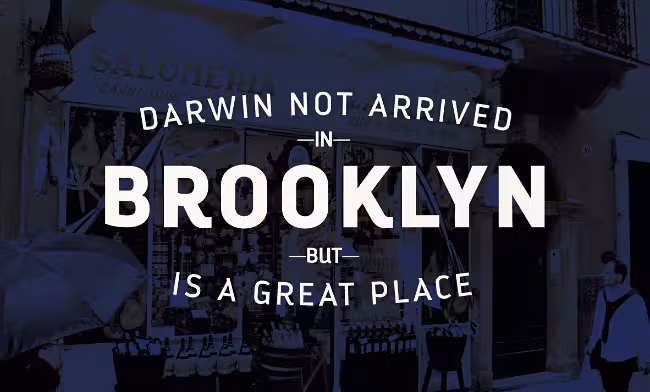
Darwin is an eclectic assembly of grotesque, geometric and humanistic styles.
Grilli Type: GT Sectra
A contemporary serif typeface combining the calligraphy of the broad nip pen with the sharpness of the scalpel.
Lettersoup: Ropa Sans Pro
While the upright styles pay a distant homage to the technical aesthetics of the early–20th century DIN series, the strongly humanistic italics breathe in quirky freshness and create a unique flavor.
dooType: Bommer Slab
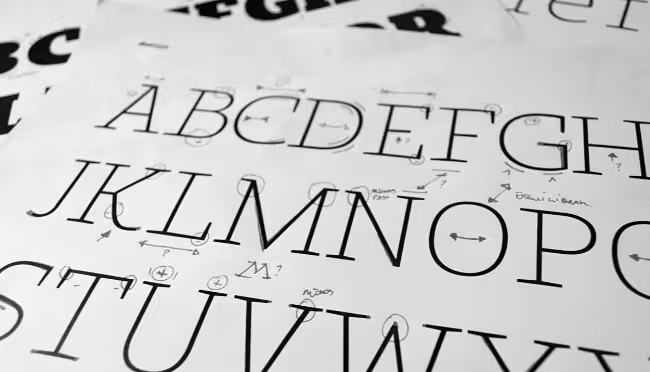
A strong personality that makes it perfect for use in headline sizes, but it also works gracefully within text blocks.
Commercial Type: Gabriello
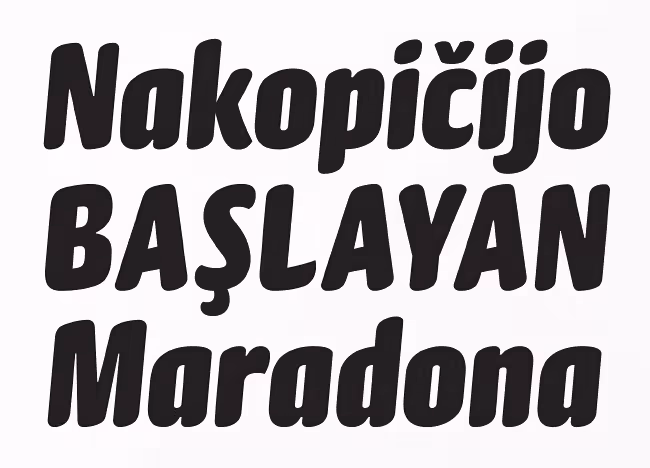
Gabriello is slanted on two axes, both horizontally and vertically, giving the energy of a script without causing production problems.
Cultivated Mind: Ciao Bella
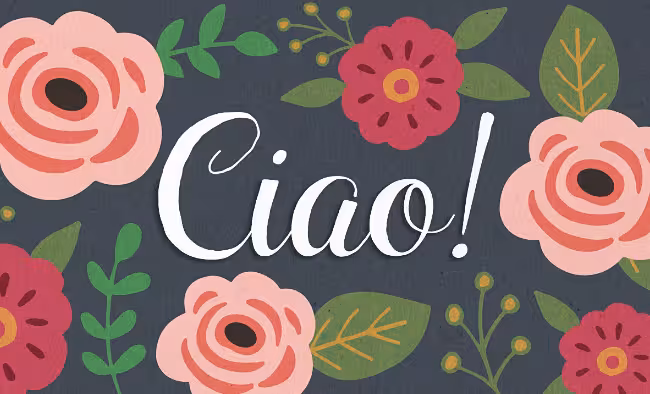
Ciao Bella pairs the funky elegance of a hand–drawn copperplate script with four ornament fonts.
Calderón Estudio Type Foundry: Risotto Script
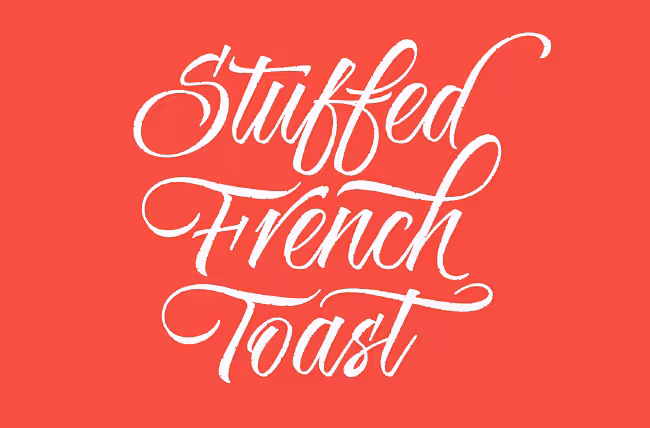
Risotto Script represents the texture, sound, smell and flavor of food.
Production Type: Cogito
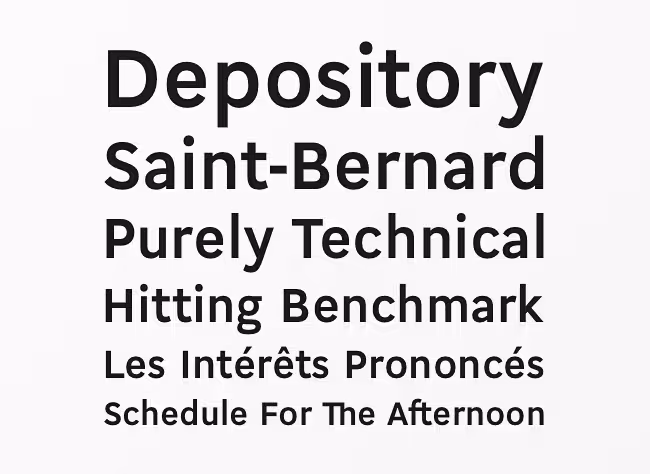
Initially designed as a personal remix of mechanically engineered typefaces, Cogito has all the clarity of its models but with a calmer tone.
Type Dynamic: Lasiver
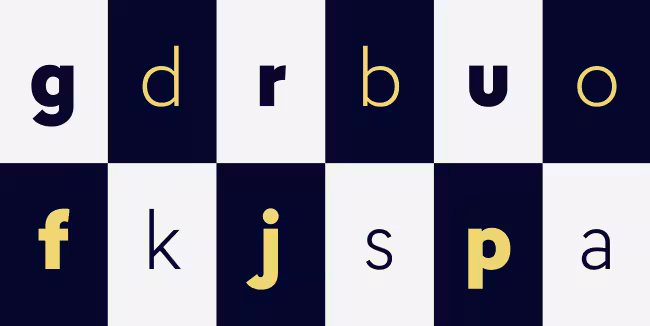
Lasiver is a simple and dynamic family with seven weights and corresponding italics.
FaceType: Adria Slab
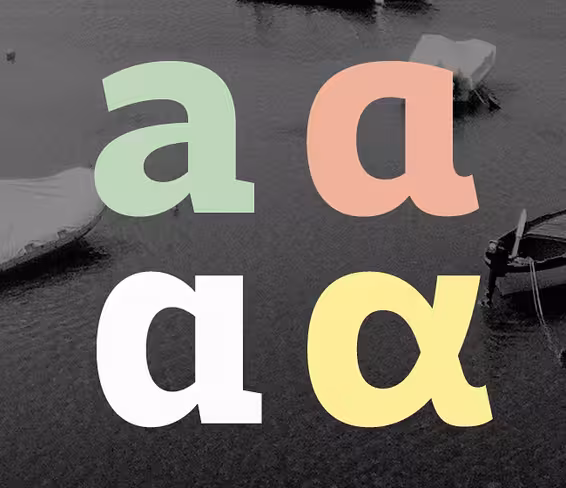
Adria Slab is a stylish slab–serif that comes in seven weights and charming upright italics.
Typotheque: Neutral
Neutral explores how the absence of stylistic associations.
Lián Types: Heroe
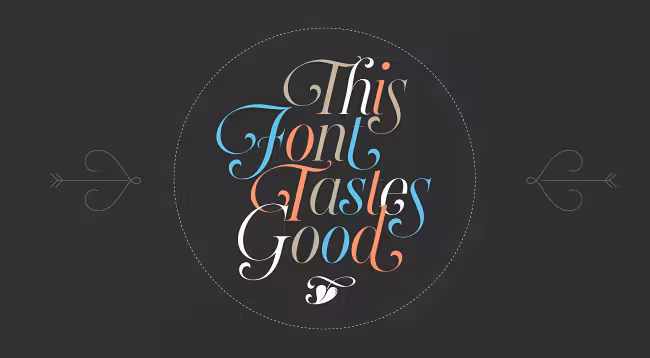
Heroe — its classy style makes the font perfect for a wide range of uses.
Latinotype: DSari
DSari is inspired by the friendliness and cordiality of neo–humanist typefaces.
Schizotype: Range Sans
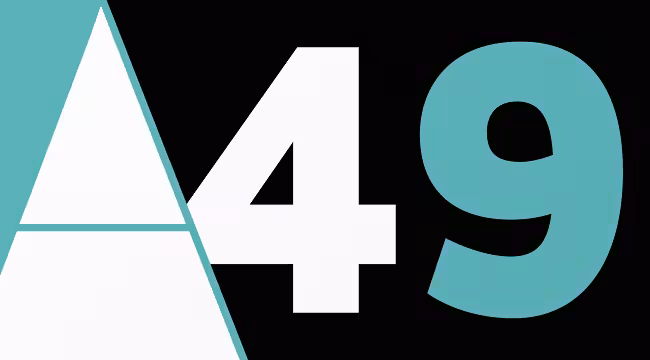
Range Sans has a contemporary, somewhat geometric look that lends itself to uses such as corporate identities, minimalist graphic design and logos.
Tart Workshop: Bookeyed Martin
Bookeyed Martin is the much anticipated addition to the popular Bookeyed family.
Monotype: Burlingame
Burlingame is a sturdy typeface with open, clear shapes that offer high legibility.
Aerotype: Arbordale
Arbordale communicates with casual confidence — a calligraphic script with roots in the midwest.
Insigne: Cabrito Sans
Cabrito Sans is a laid back, rounded sans–serif alternative served up over easy.